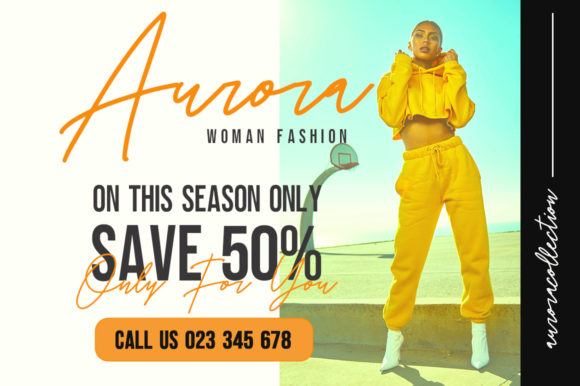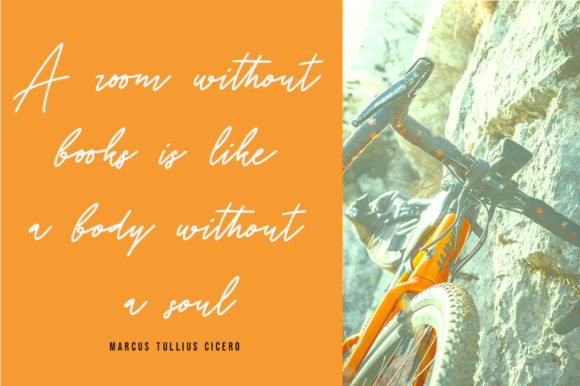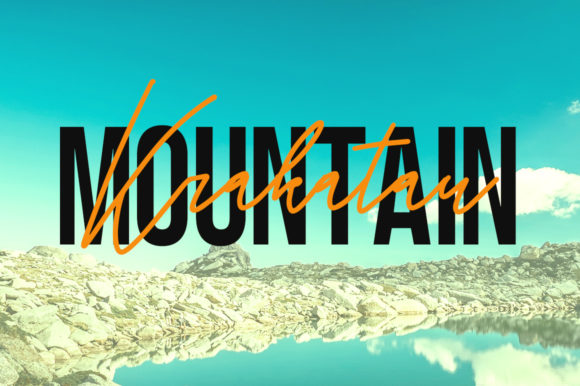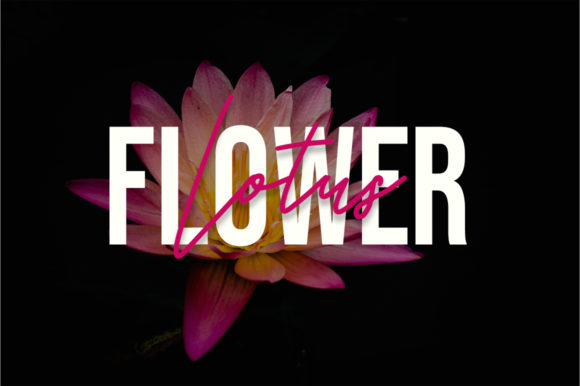
HomeScript FontsHello Monday Font Script Fonts Hello Monday Font FacebookXPinterestWhatsApp Hello Monday Font Poster 2 Hello Monday Font Poster 3 Hello Monday Font Poster 4 Hello Monday Font Poster 5 About Hello Monday Font Hello Monday is a fun and cool handwritten font with a summery theme. Get inspired by its effortless style! DOWNLOAD NOW People also explored Shafira Font Decor Leaf Dingbat Font Rojengos Font Moon River Font Virginia Font Winterland Font Bastery Font Fideon Font PAG Smoke 320 0 TagsHello Monday Font Previous articleColatin Script FontNext articleArkania Font LEAVE A REPLY Cancel reply Comment: Please enter your comment! Name:* Please enter your name here Email:* You have entered an incorrect email address! Please enter your email address here Website: Save my name, email, and website in this browser for the next time I comment. Personal Use Free Happy Rabbit Personal Use Free Read more about this font Super Bubbly Font Personal Use Free Read more about this font Machine House Personal Use Free Read more about this font Vivacious Personal Use Free Read more about this font BLOG Where to Buy American Fonts Online in 2024 Where to Buy American Fonts Online: The Ultimate Guide for 2024 Looking for the perfect American font to elevate your design projects? You're in the... To increase your work productivity, choose the most readable fonts. The 10 Best Handwriting Fonts to Add Personality to Your Designs Top 7 Google Fonts Alternatives for Faster and Privacy-Friendly Web Design (2025)